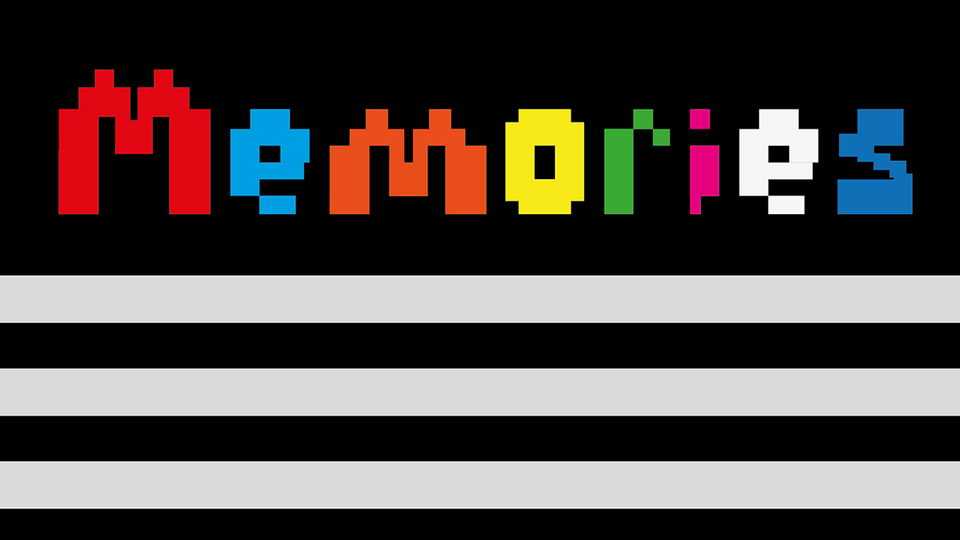
Download Memories font, a retro comp / video games pixel typeface. Memories font is perfect for retro designs, games, posters, headlines and other artworks.
Designer: Konrad Bednarski